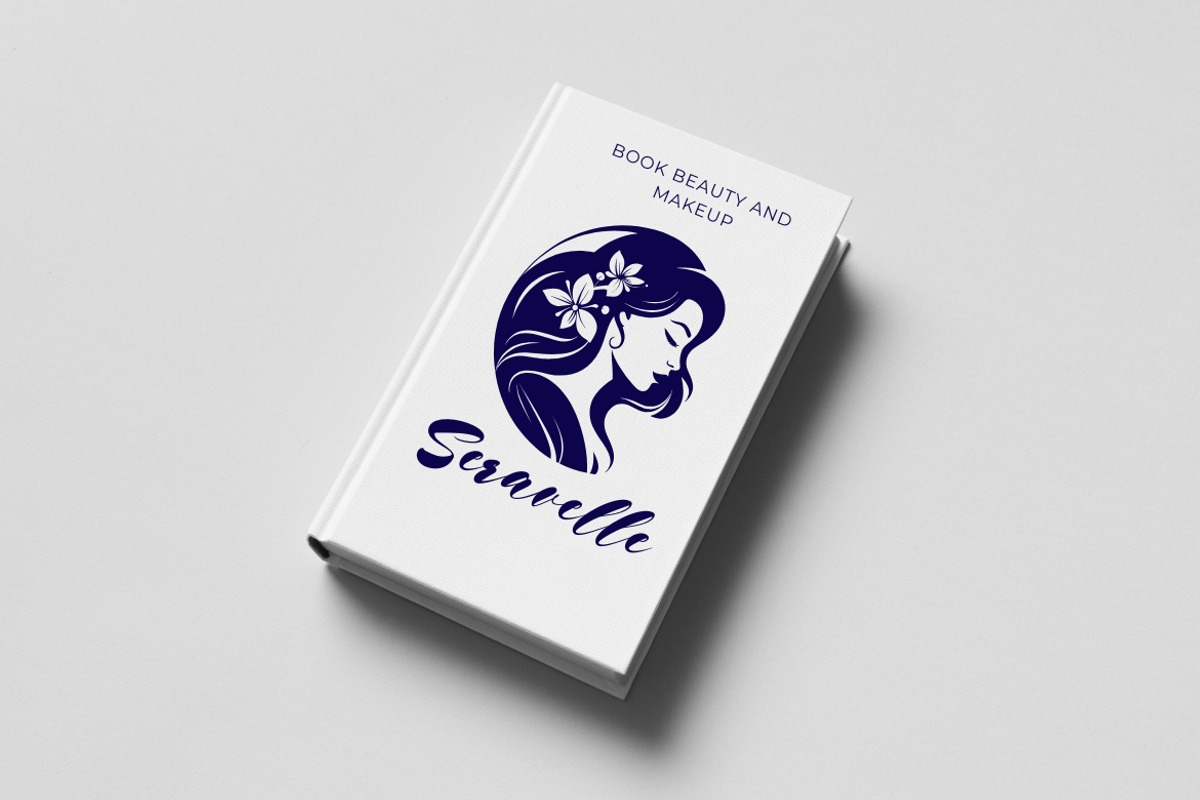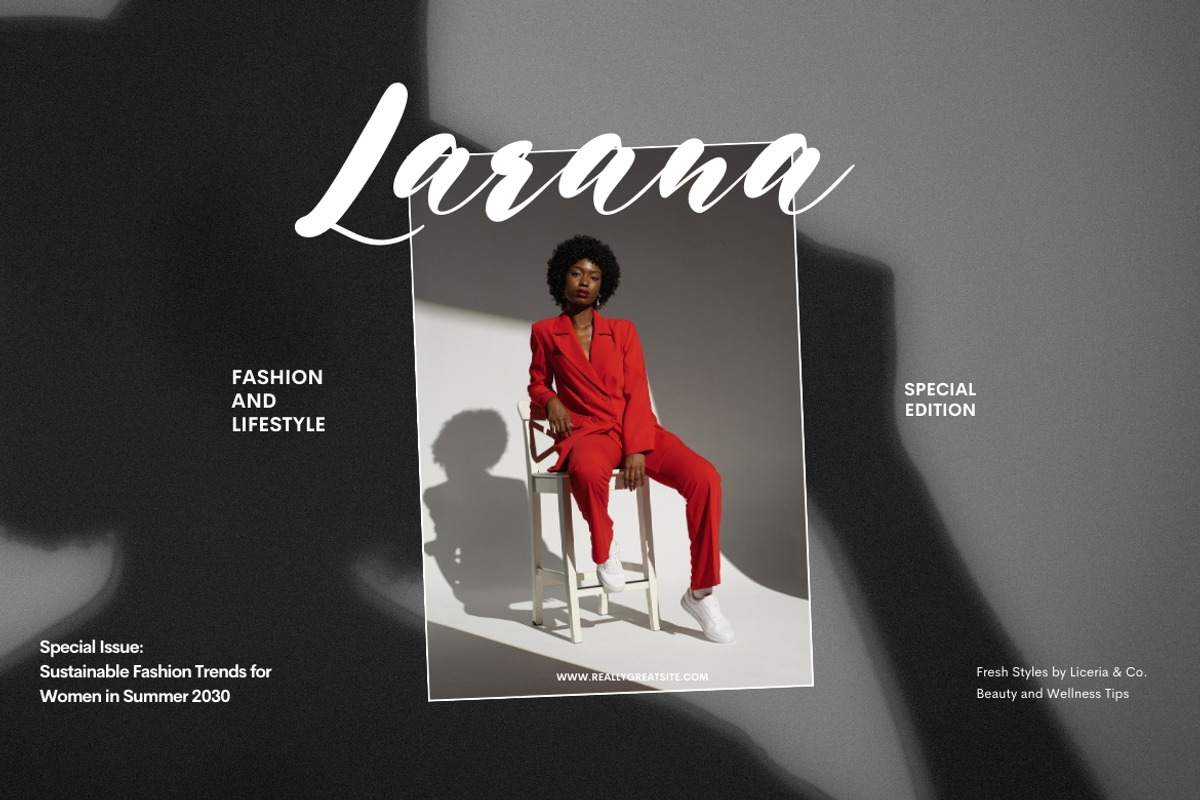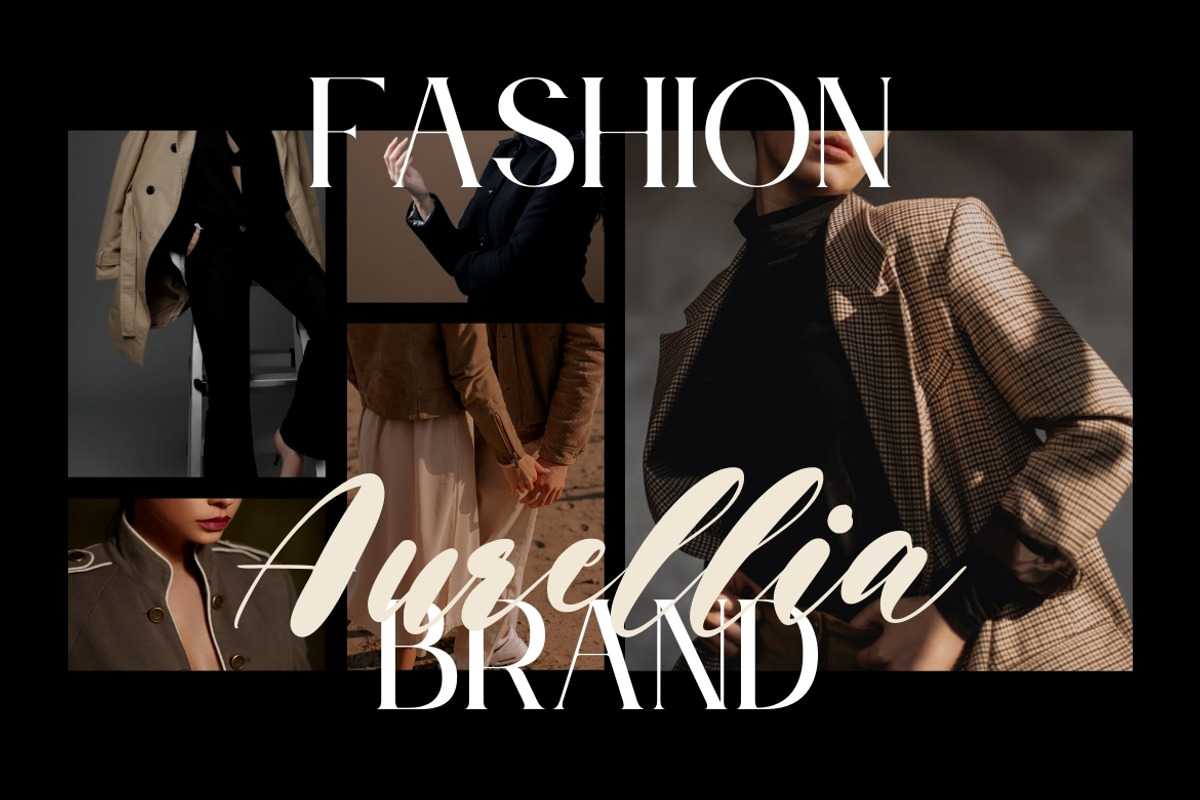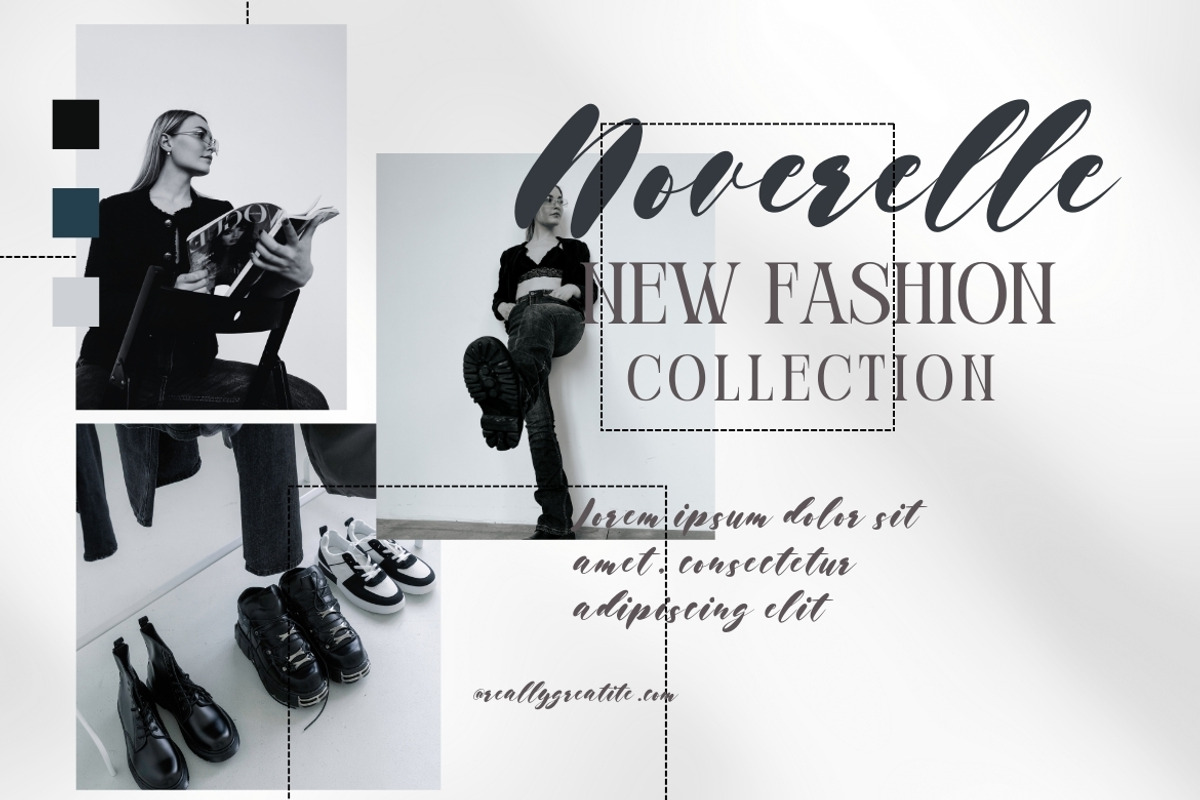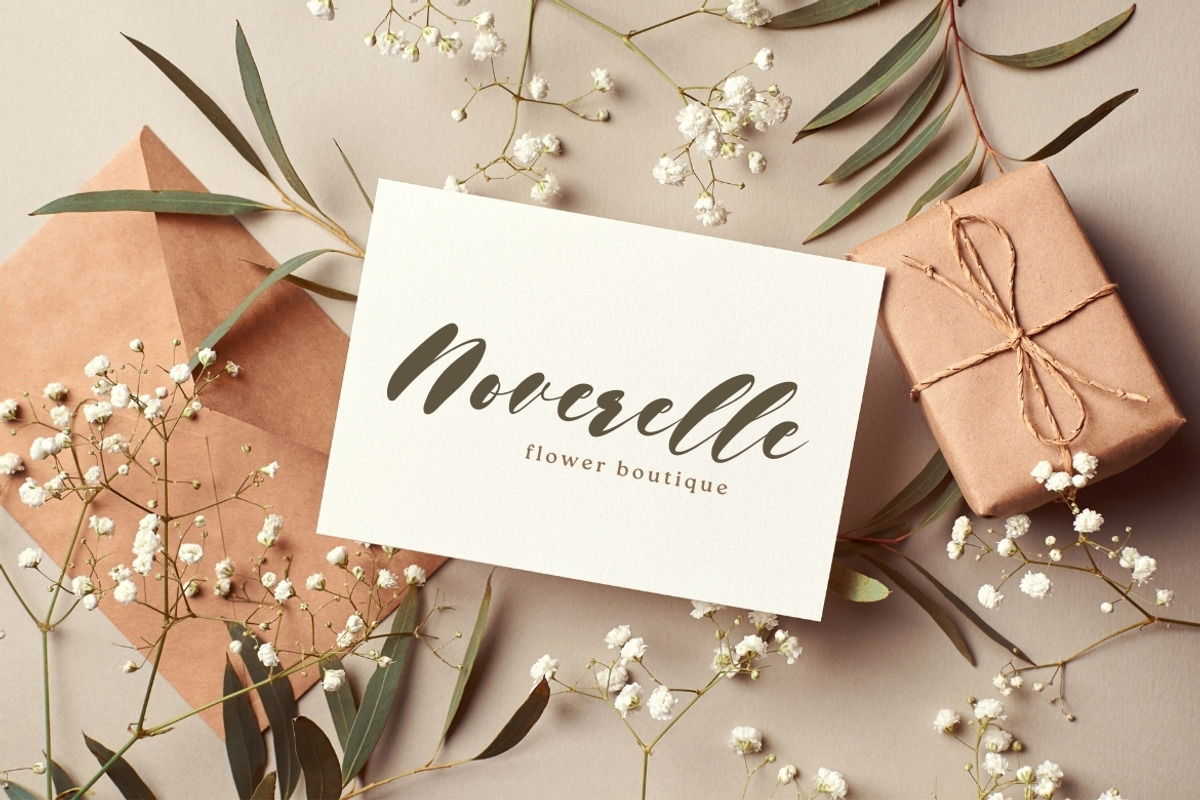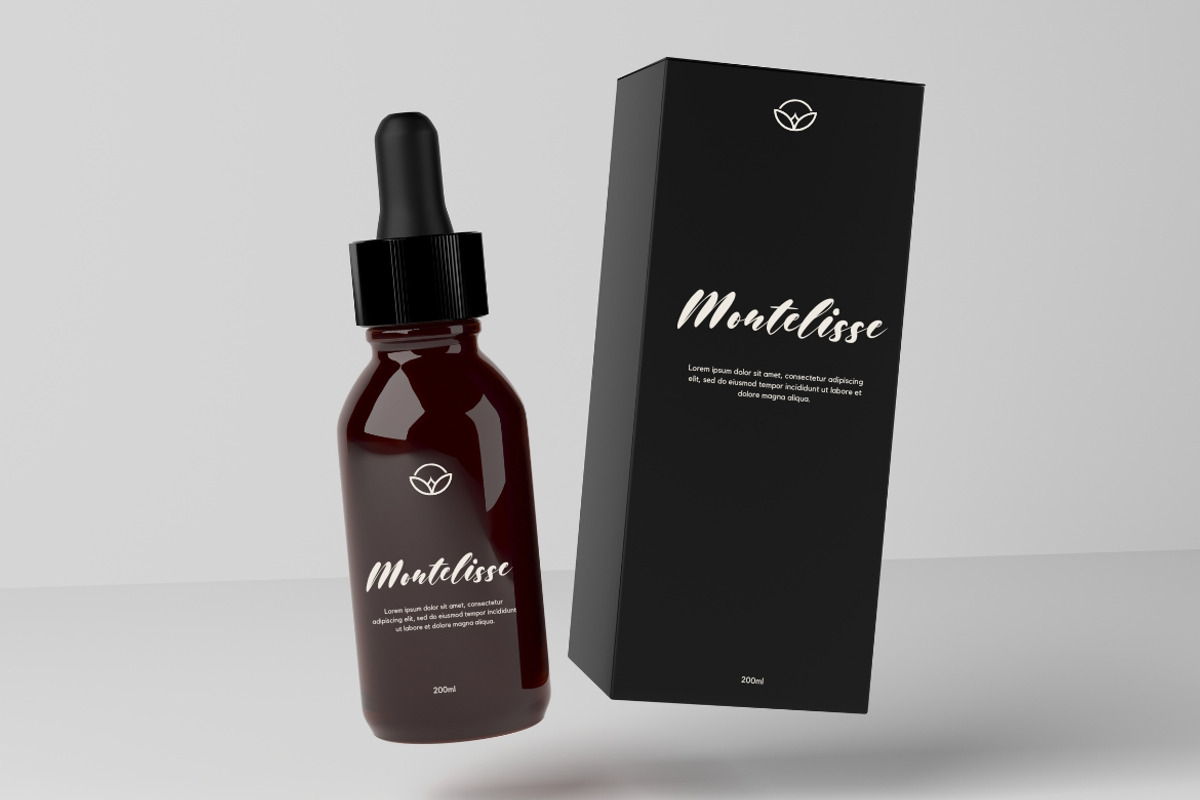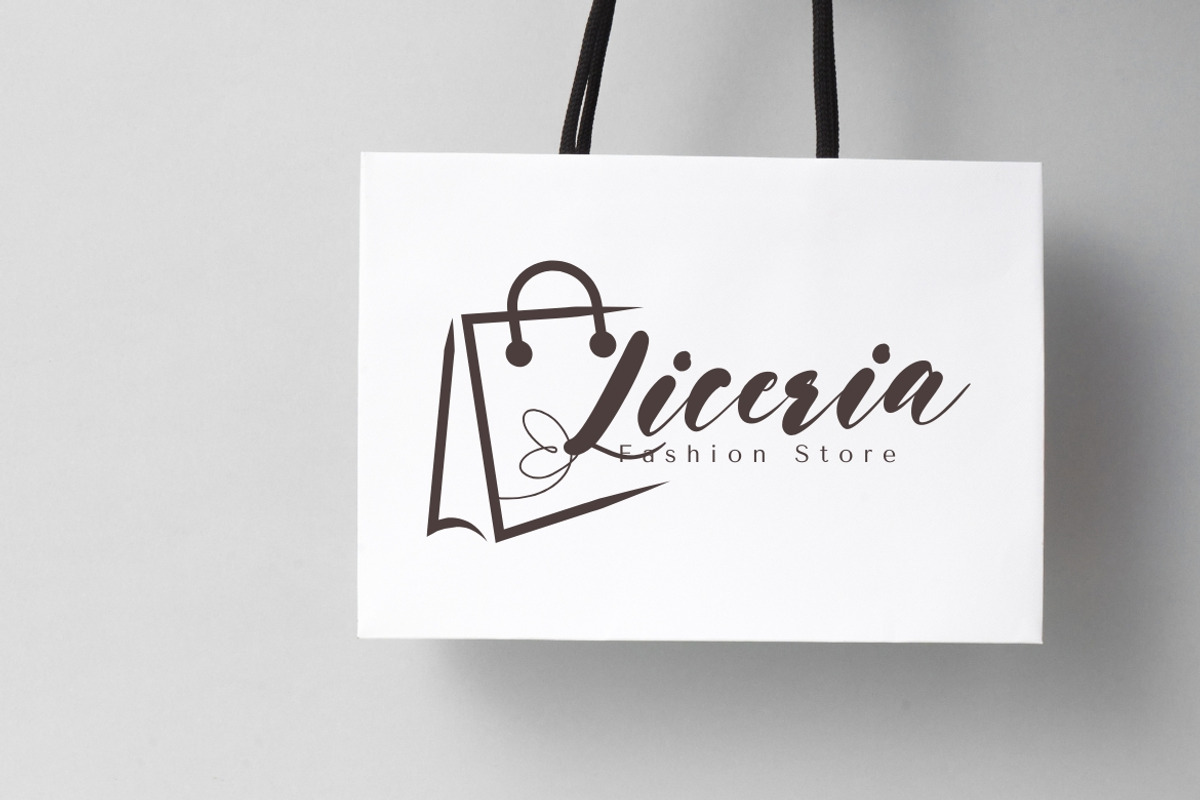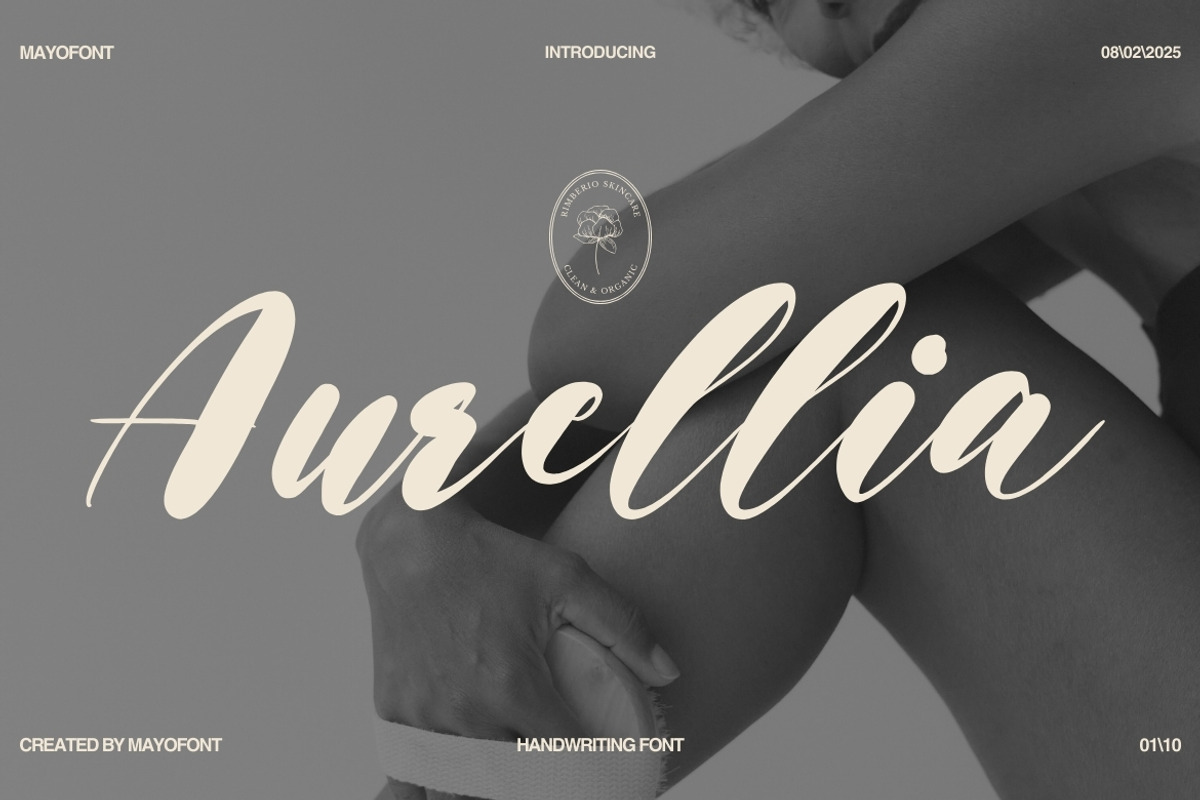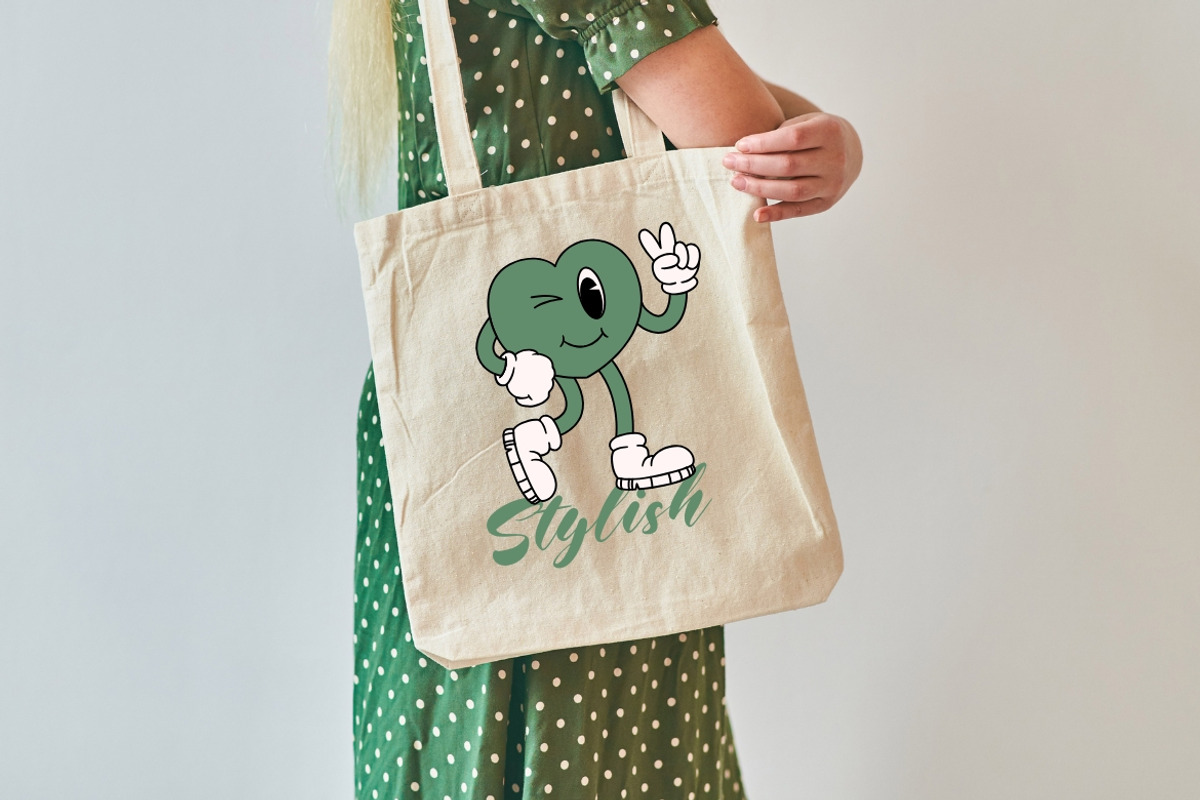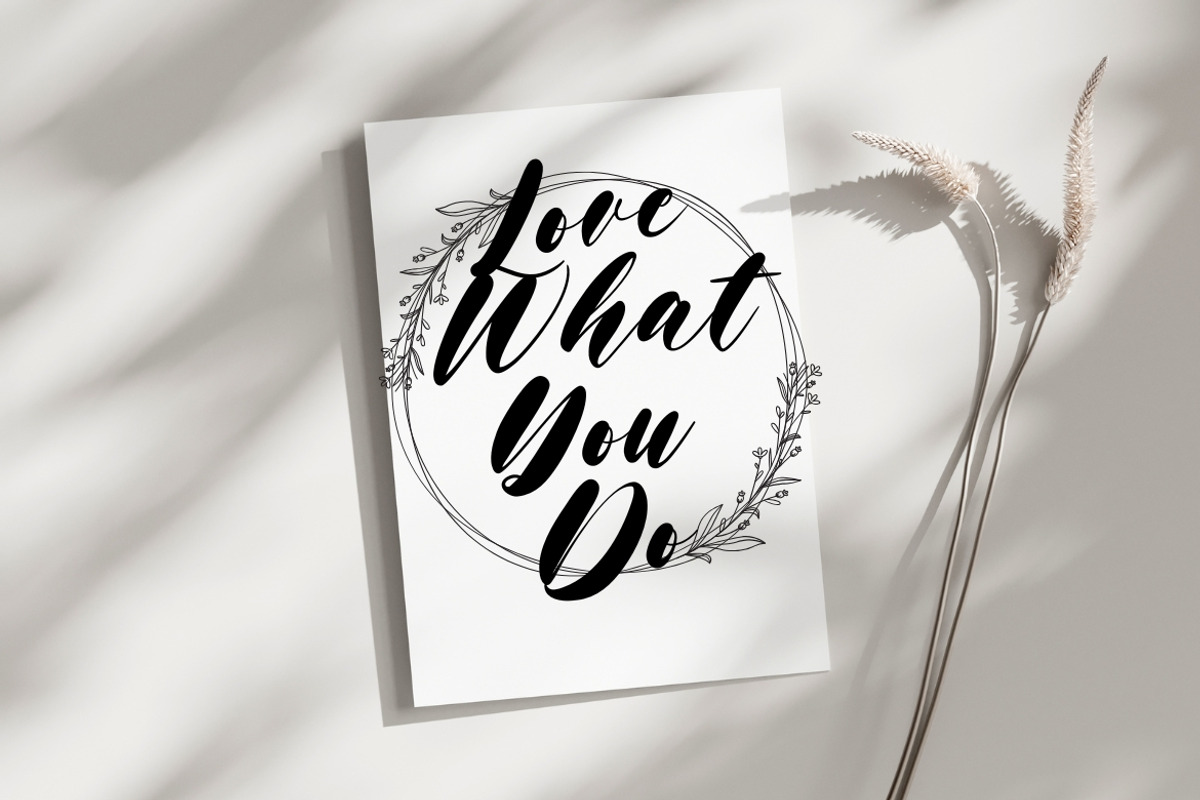
Aurellia Handwritten Font
Aurellia Handwritten is a sophisticated and graceful script font that brings a natural, elegant touch to your designs. Its smooth curves and flowing strokes create a sense of refinement, making it perfect for branding, logos, wedding invitations, and other creative projects. Aurellia Handwritten exudes timeless charm and modern elegance, effortlessly enhancing any visual concept with its organic and luxurious style.
- multilingual support & ligature